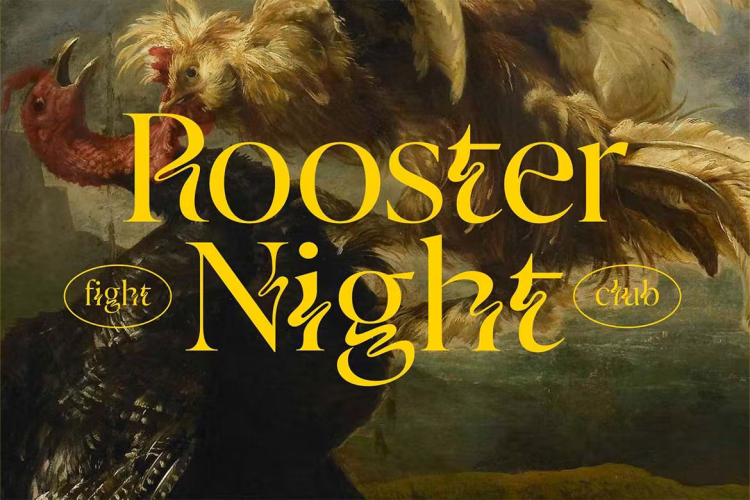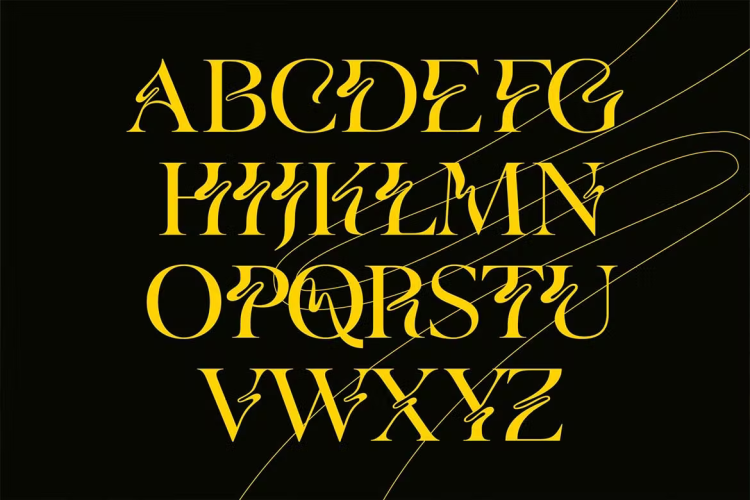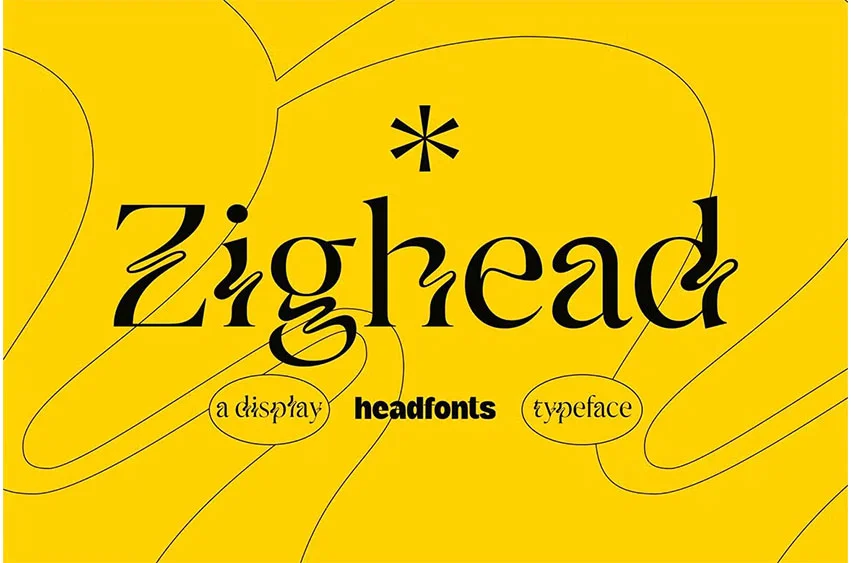
Zighead Display Font
Zighead Display Font is happy to present a new display font, named Zighead. This decorative font features strong and unique serif characters that flow like a river of ink. Being a combination of sharp points and smooth curves, is interesting yet playful, providing that zing you are looking for. is an uppercase and lowercase font with standard Latin script support, numerals, and punctuation. This decorative font for sure will stand out, with its highly stylized, unique glyphs that are perfect for absorbing wordmarks and typographic posters.